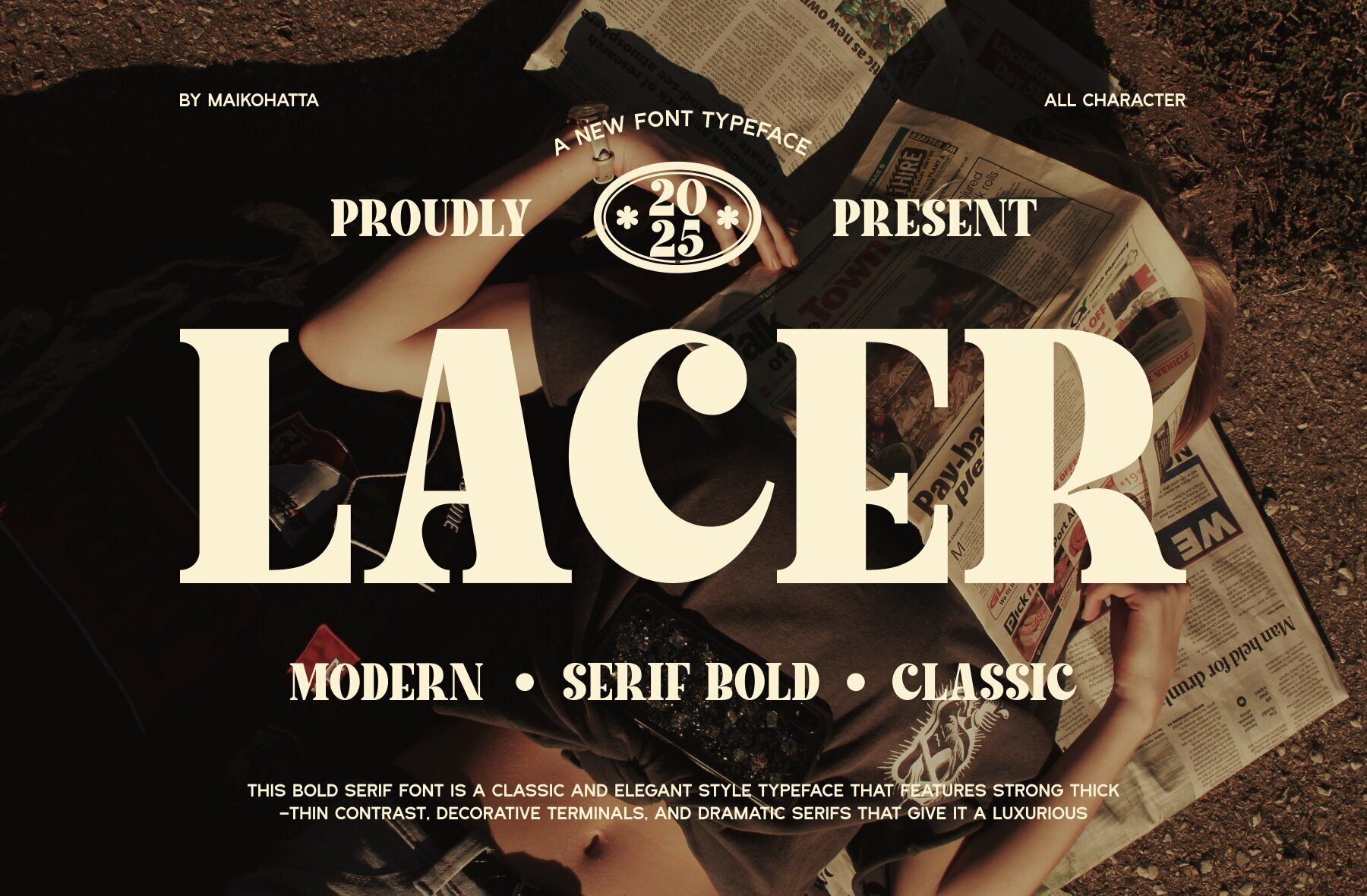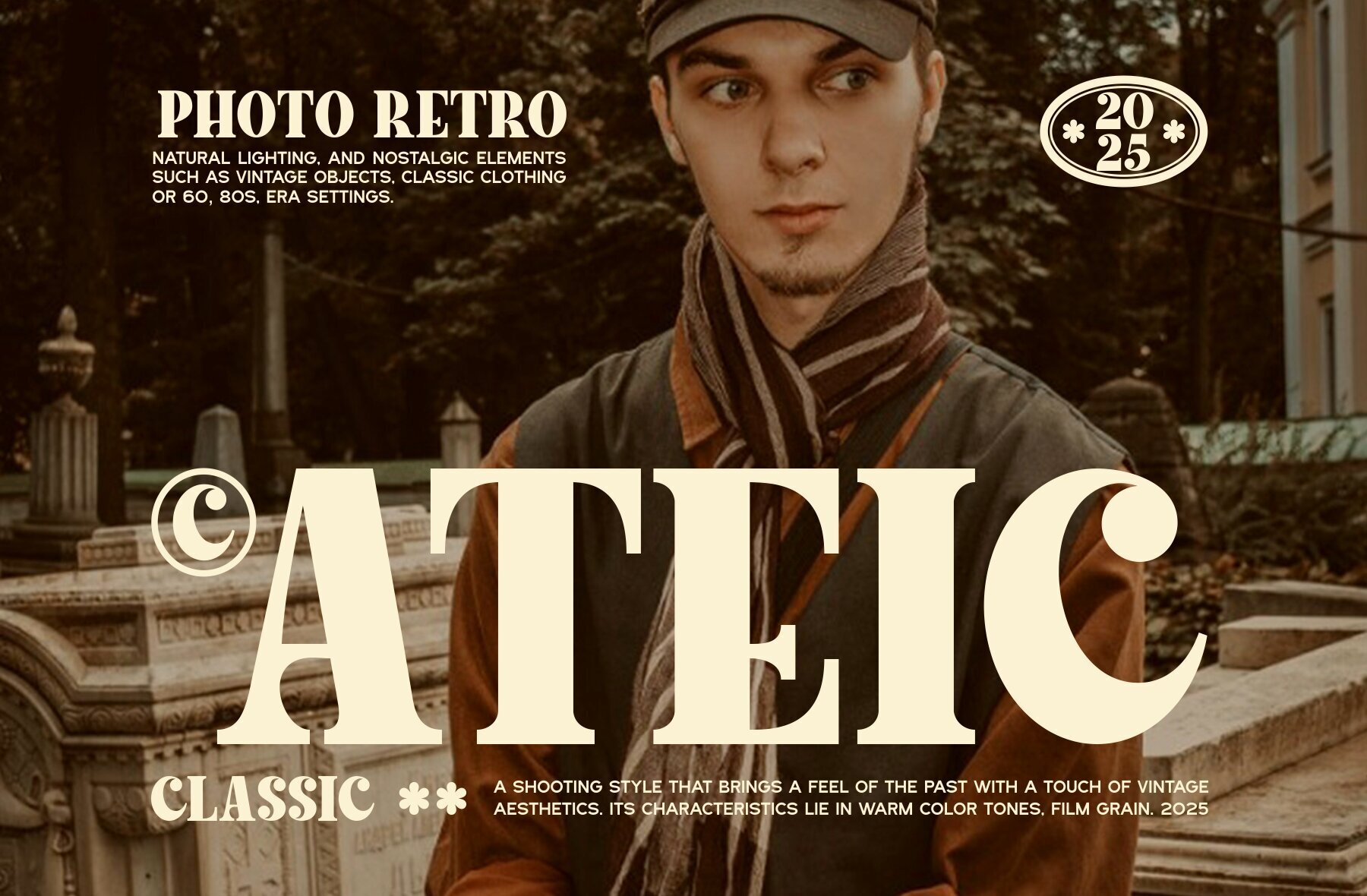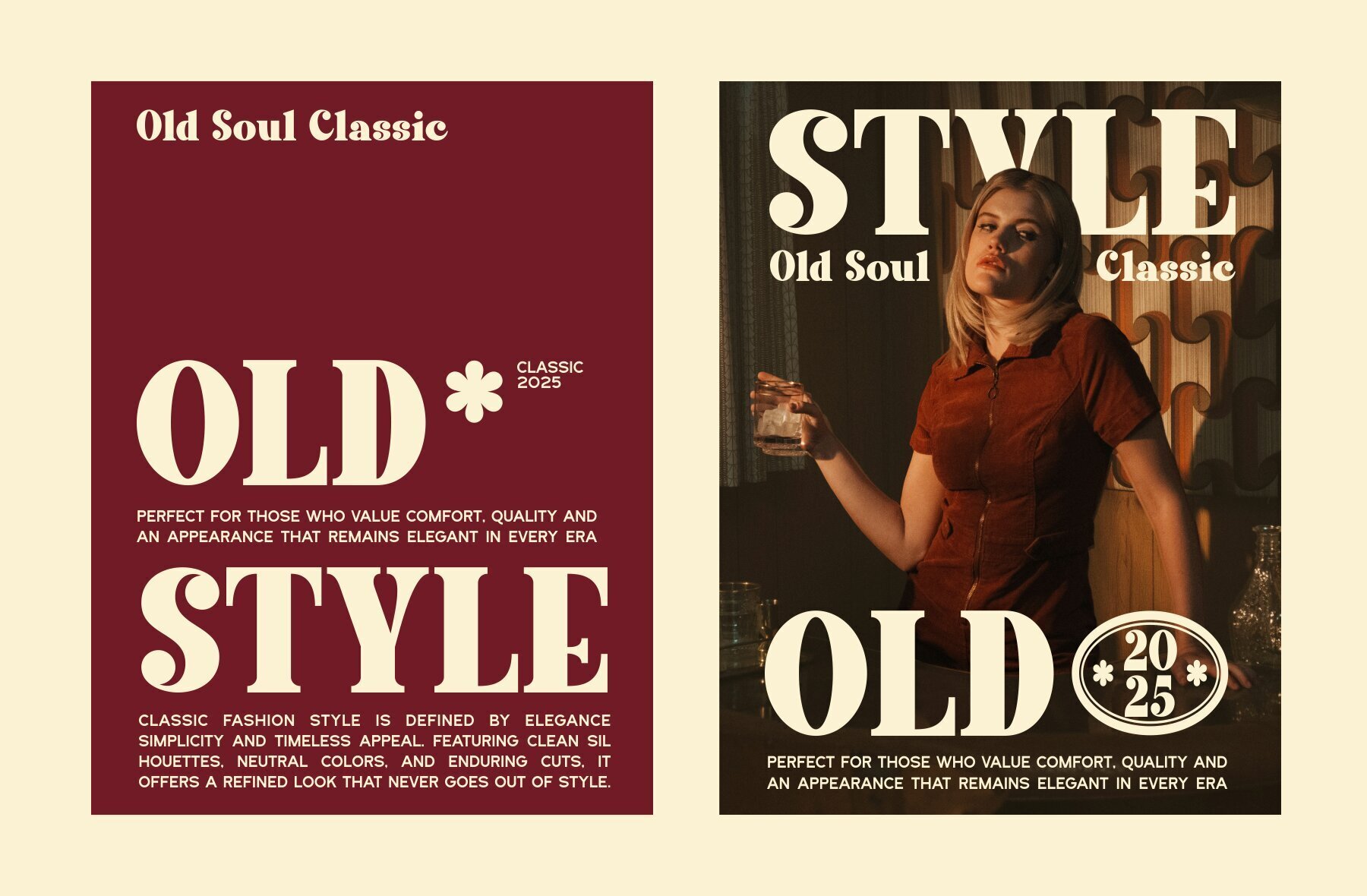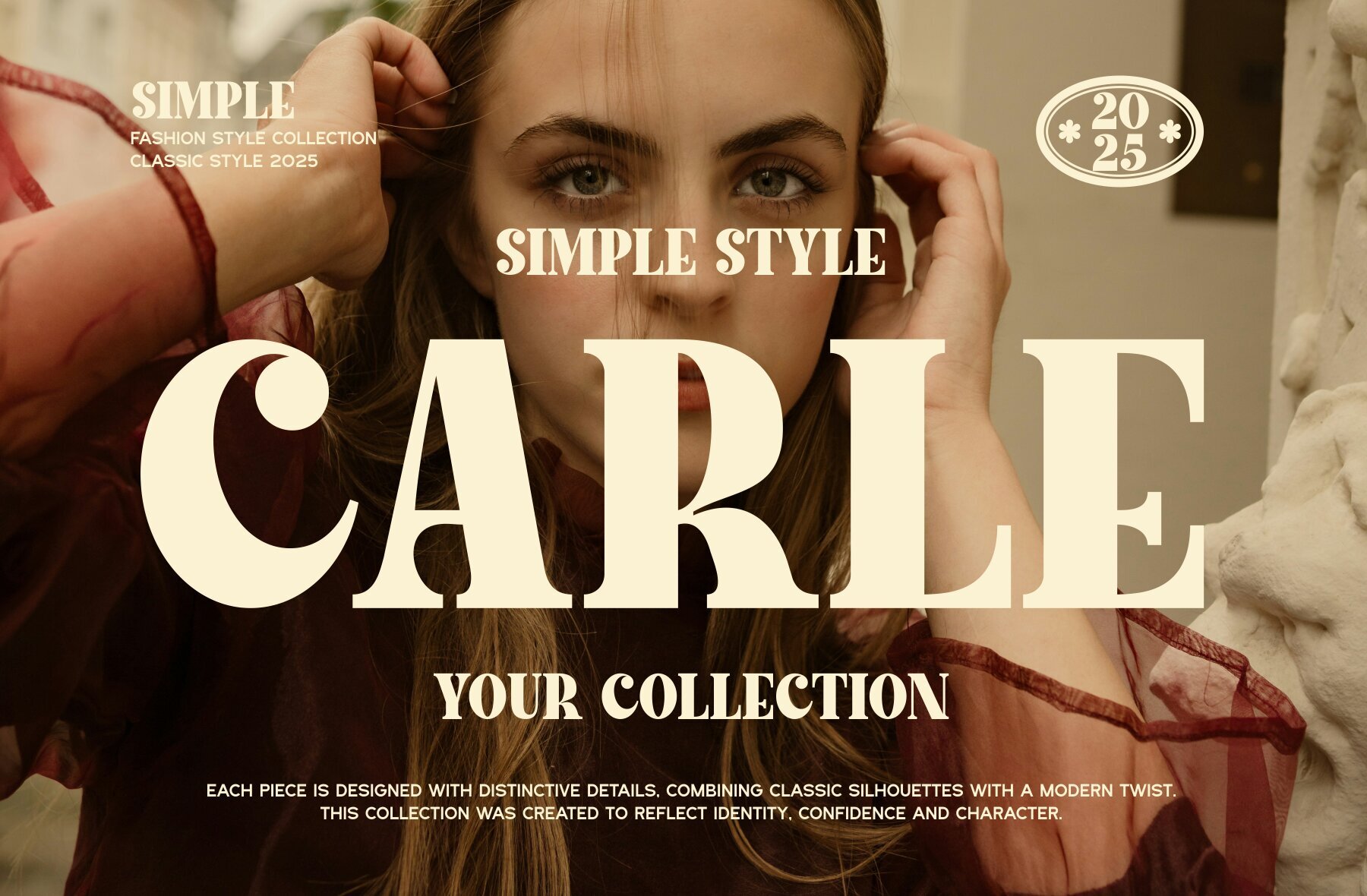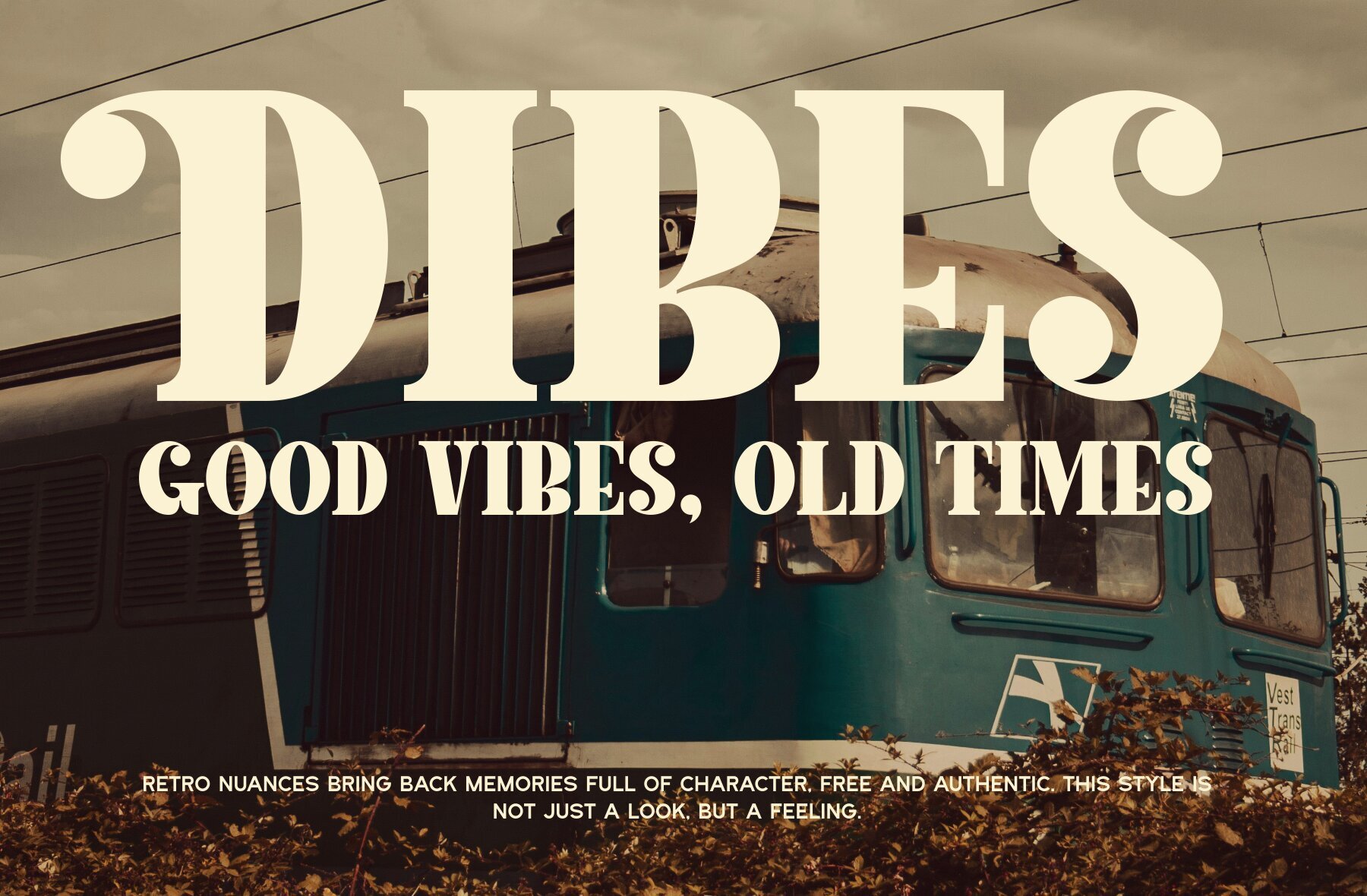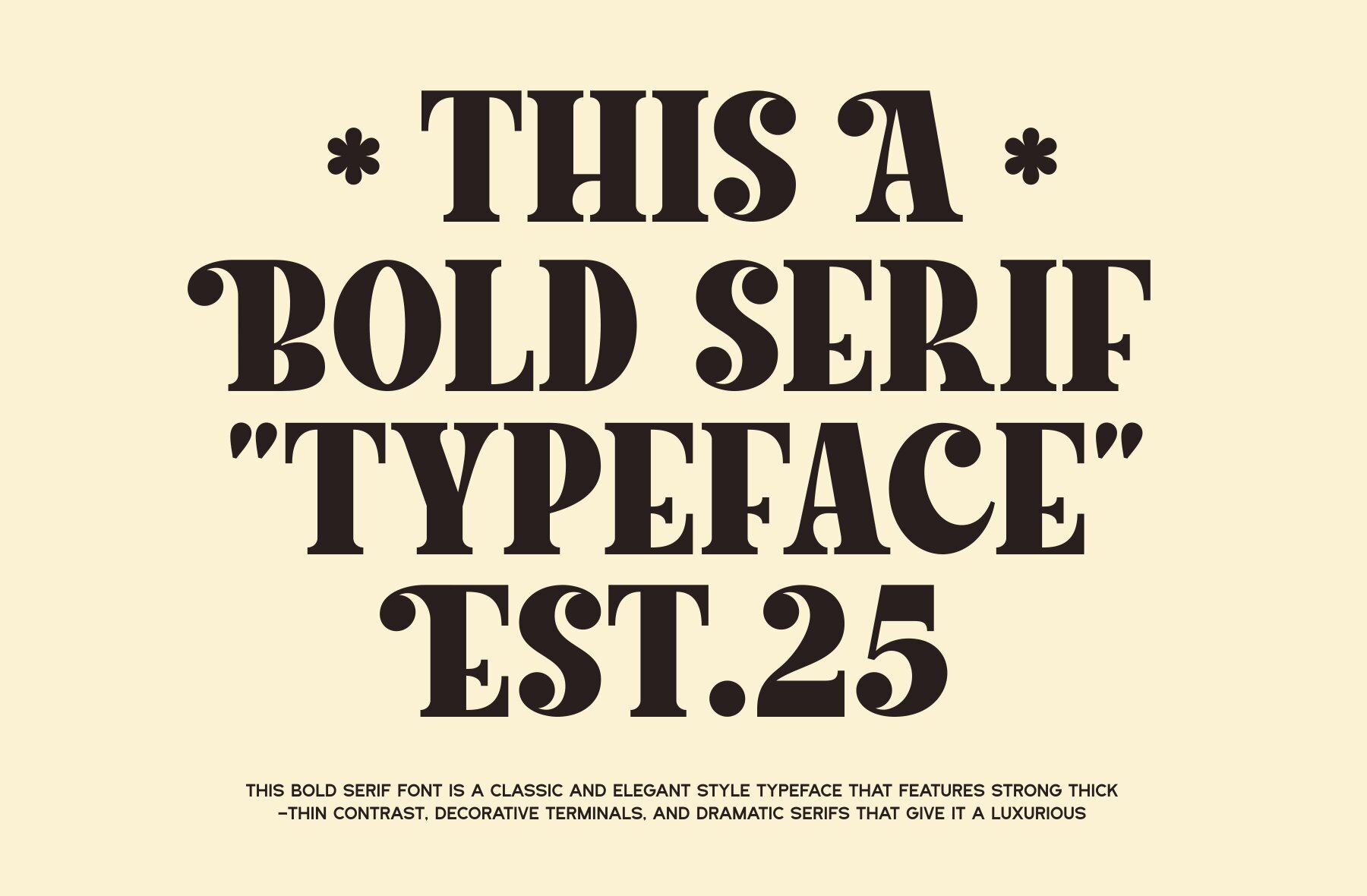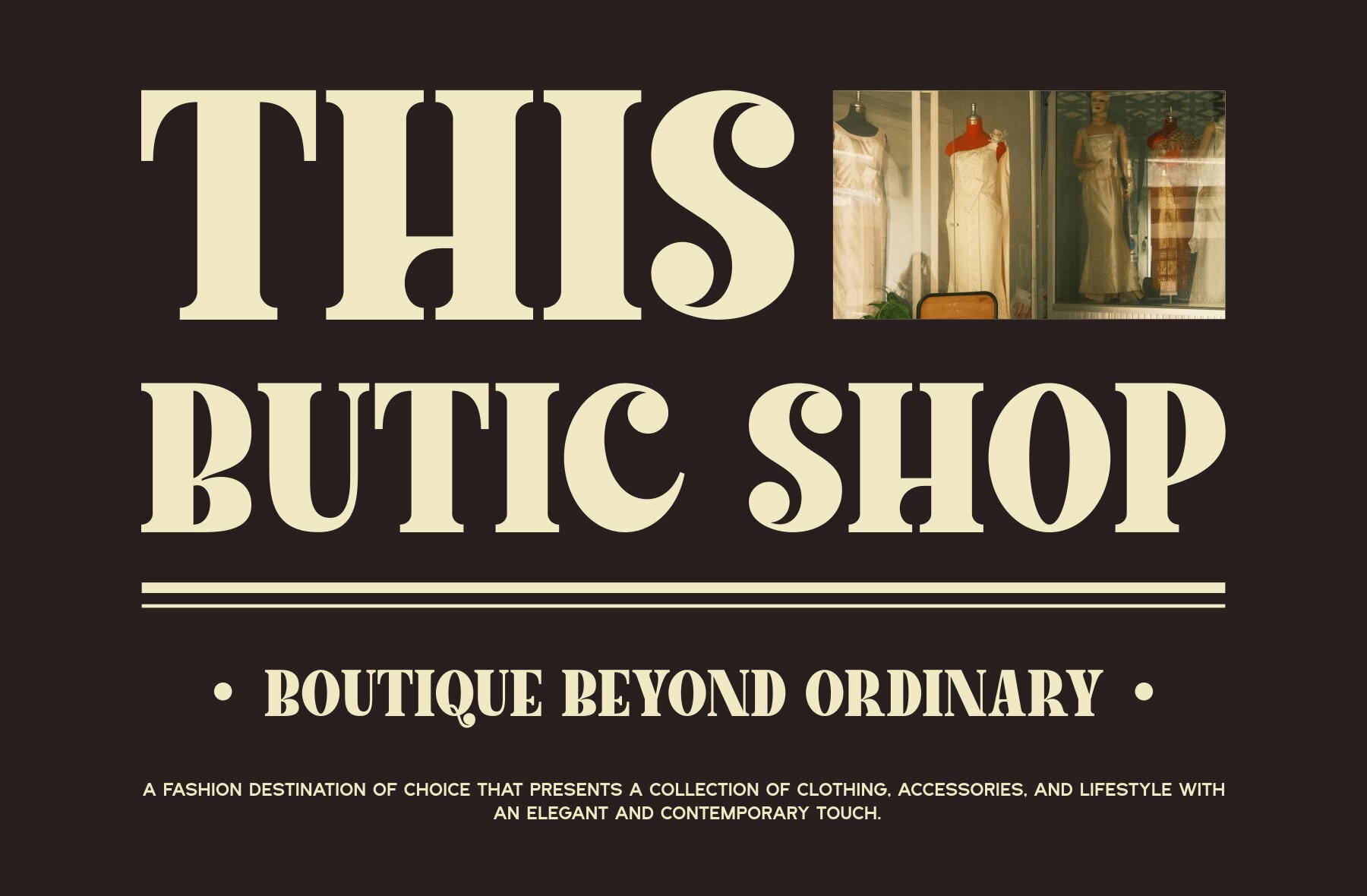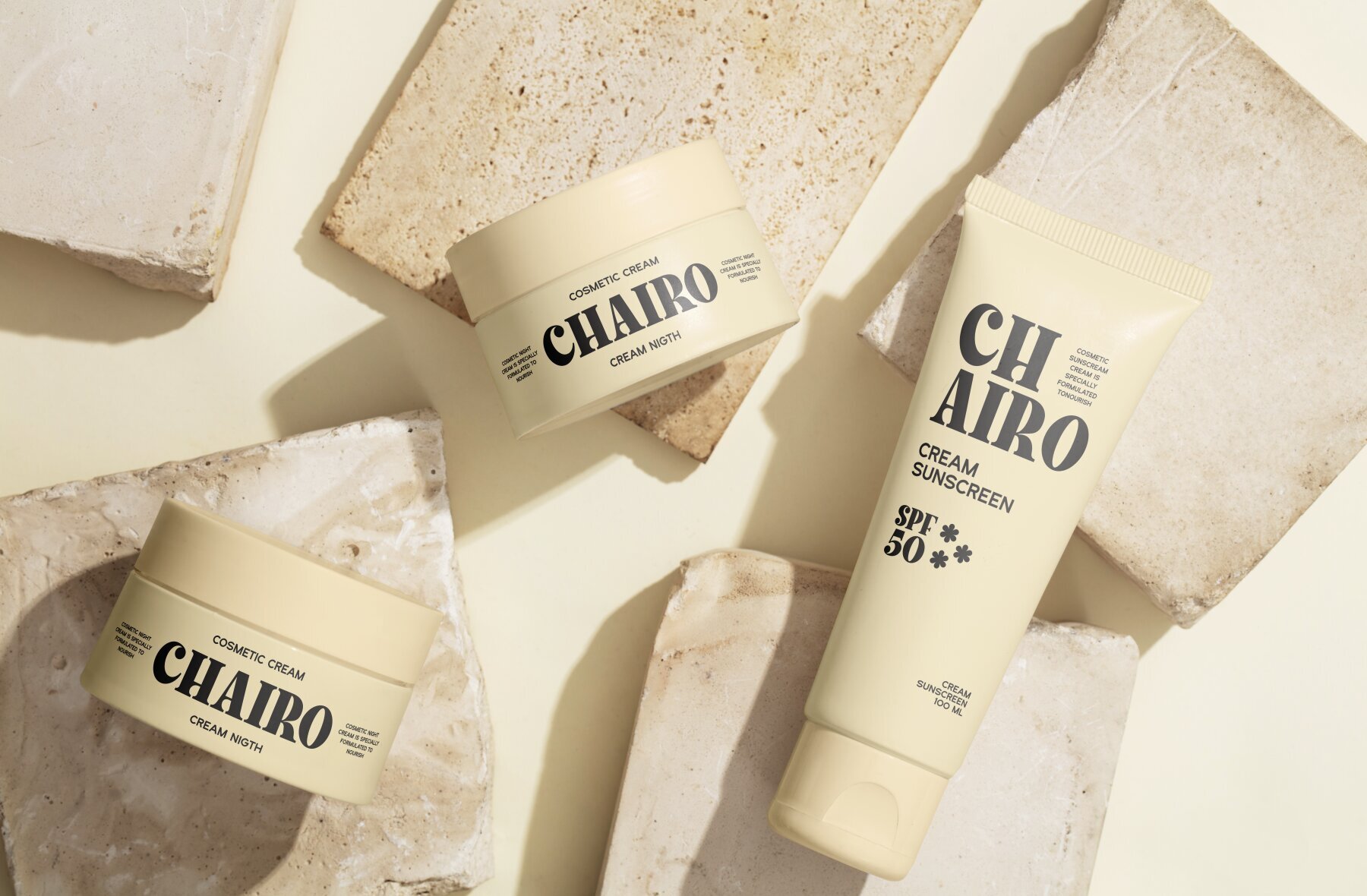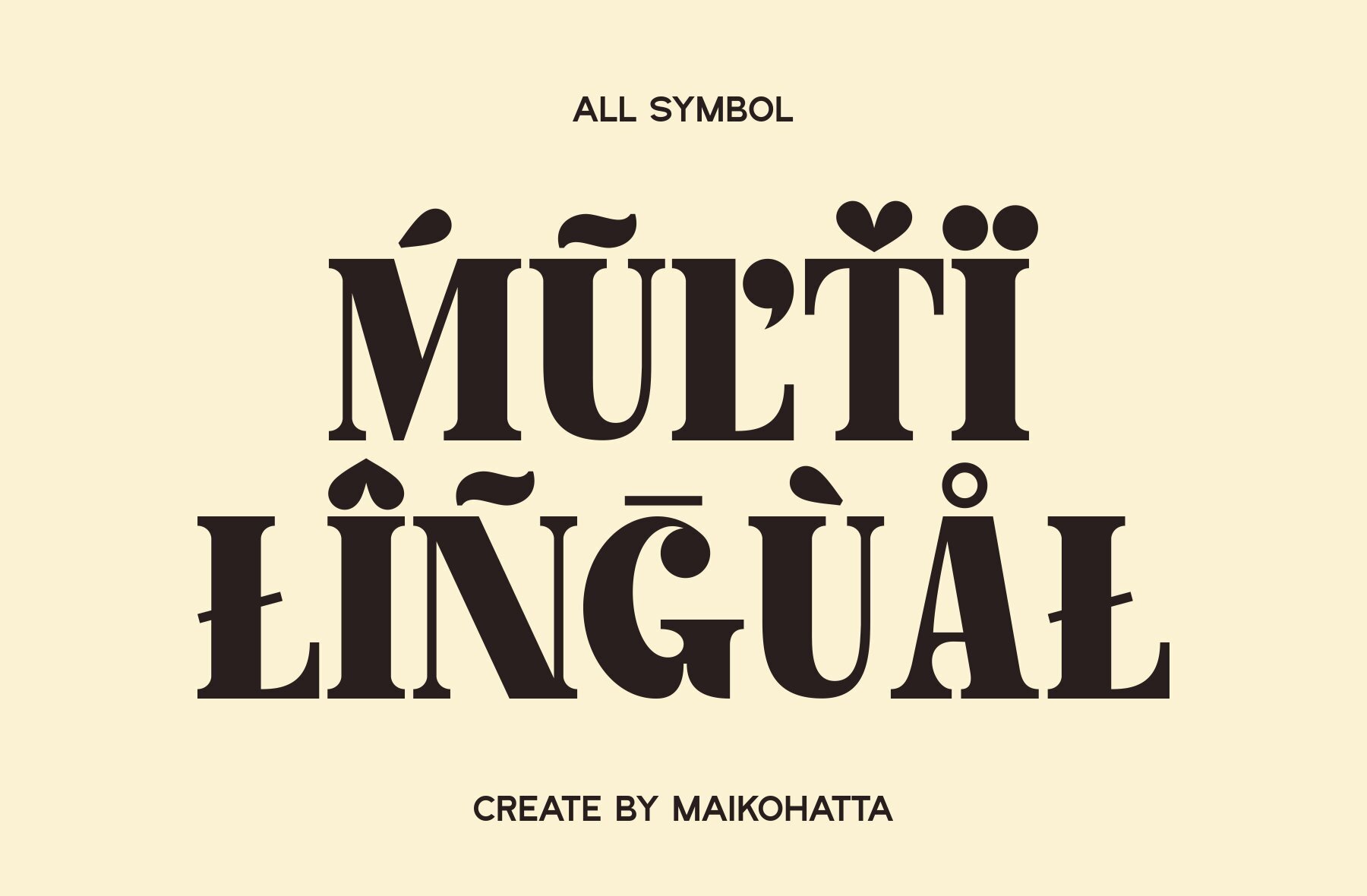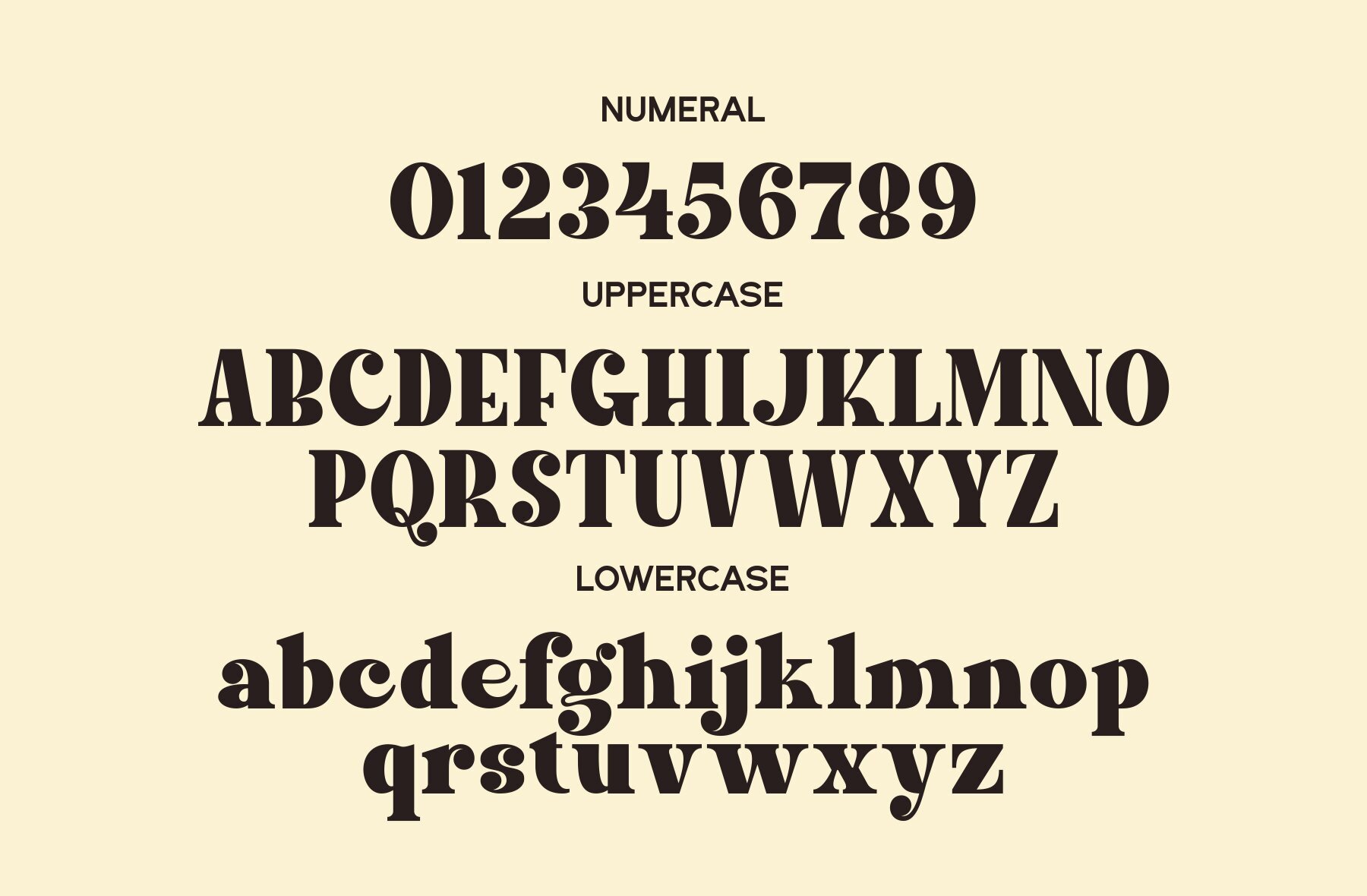
Lacer Font
LACER
Lacer embodies a serif bold aesthetic with its pronounced strokes and distinctive serif extensions, offering a sense of strength and classical sophistication. Its bold weight ensures visibility and emphasis, perfect for applications like headlines, logos, and book covers where readability and impact are crucial.Lacer: Classic Serif Bold Typeface
Design Features